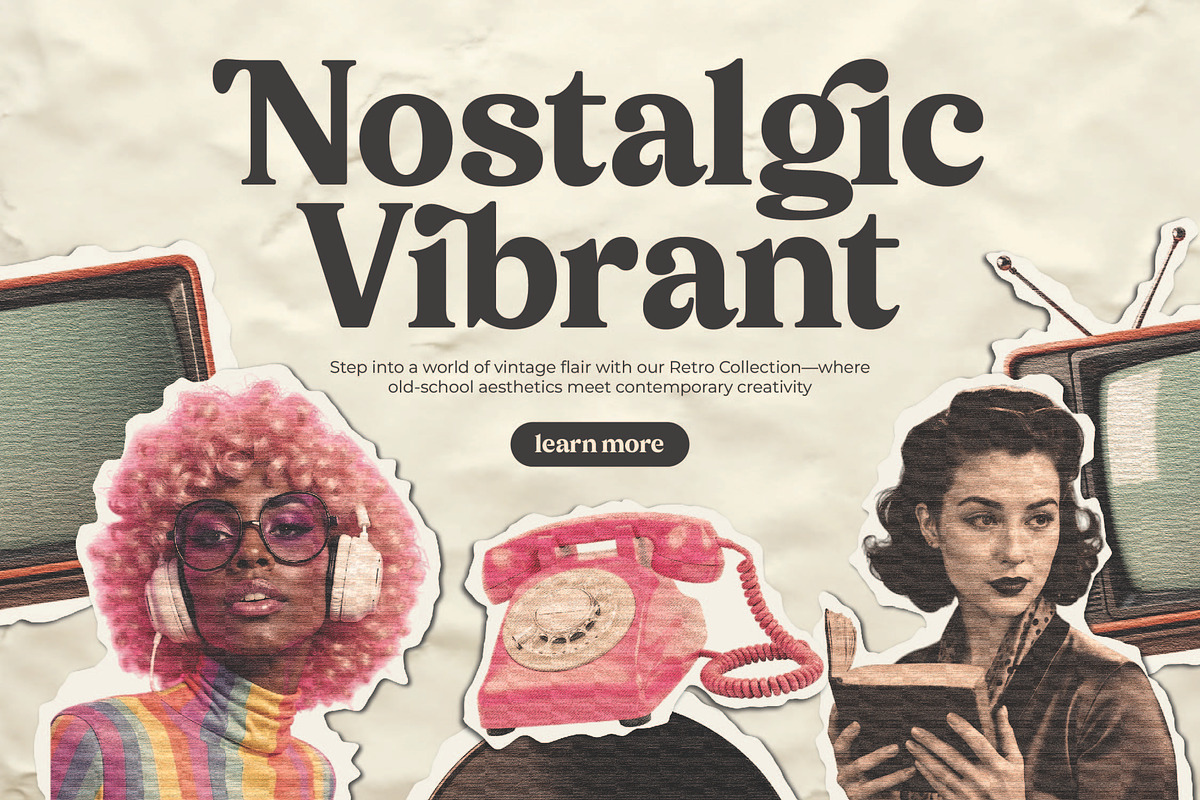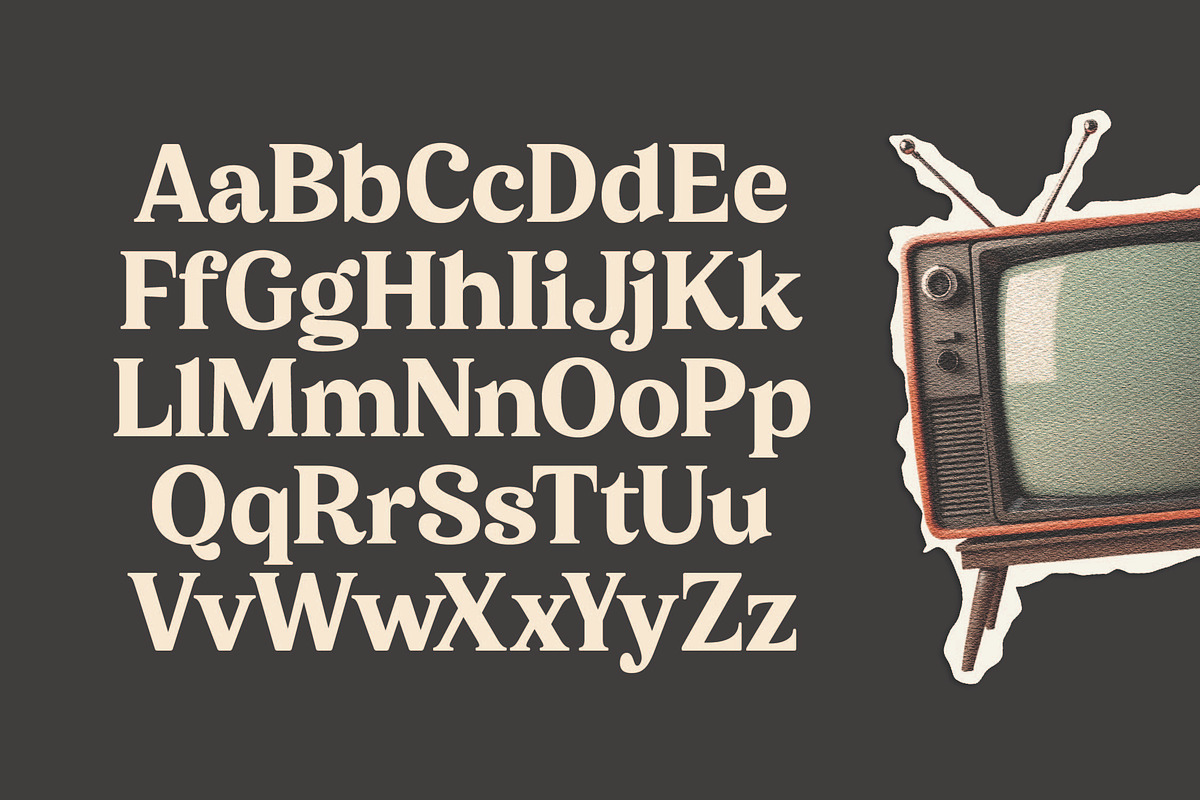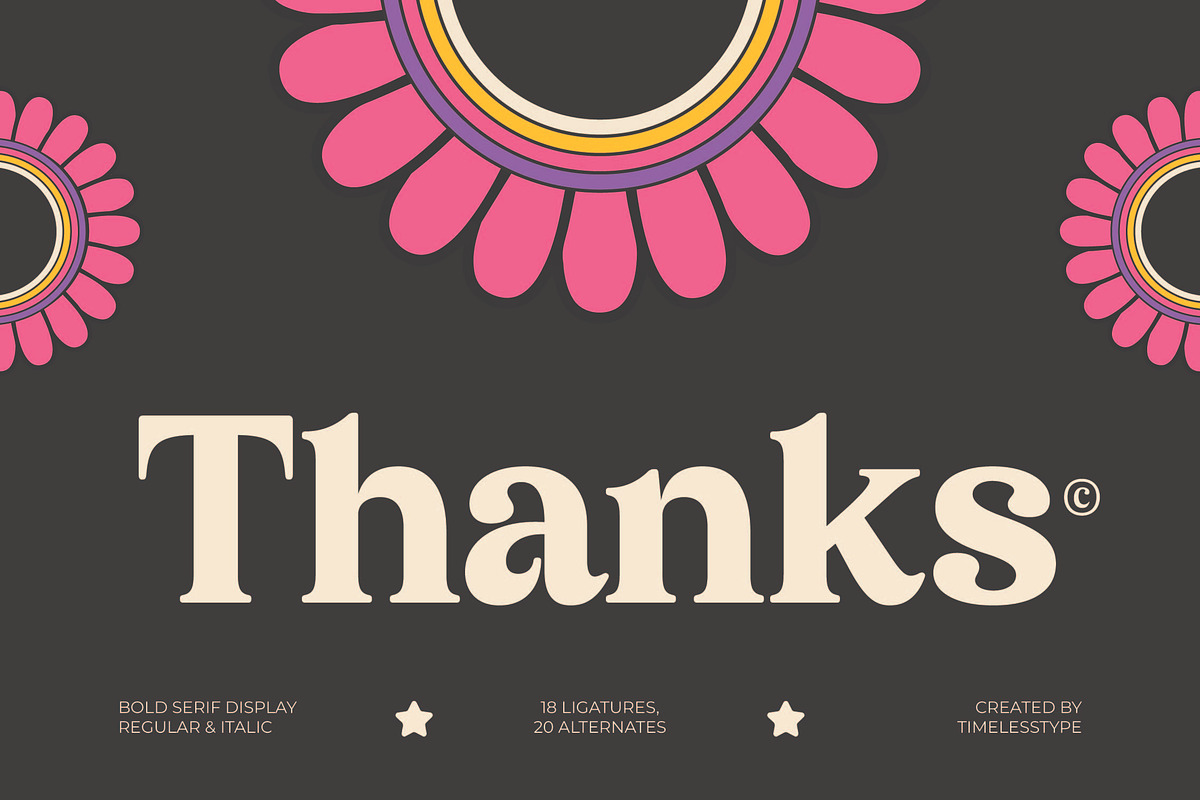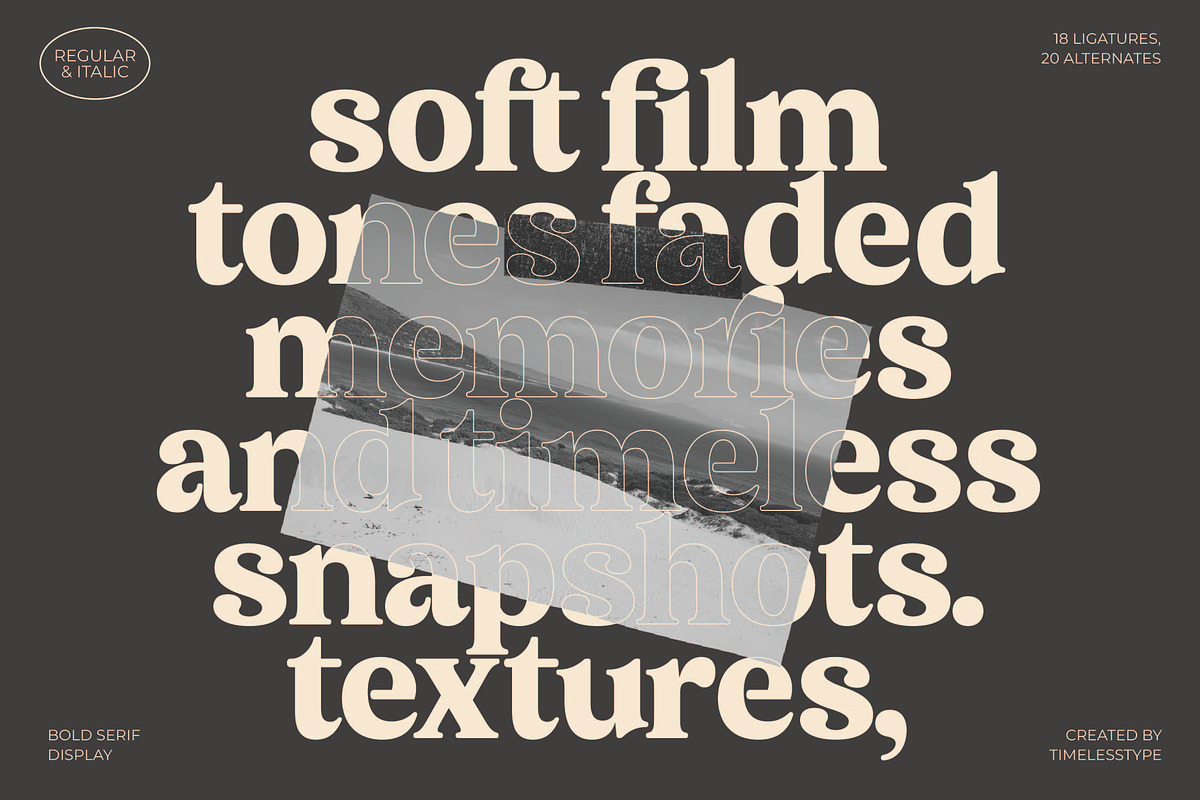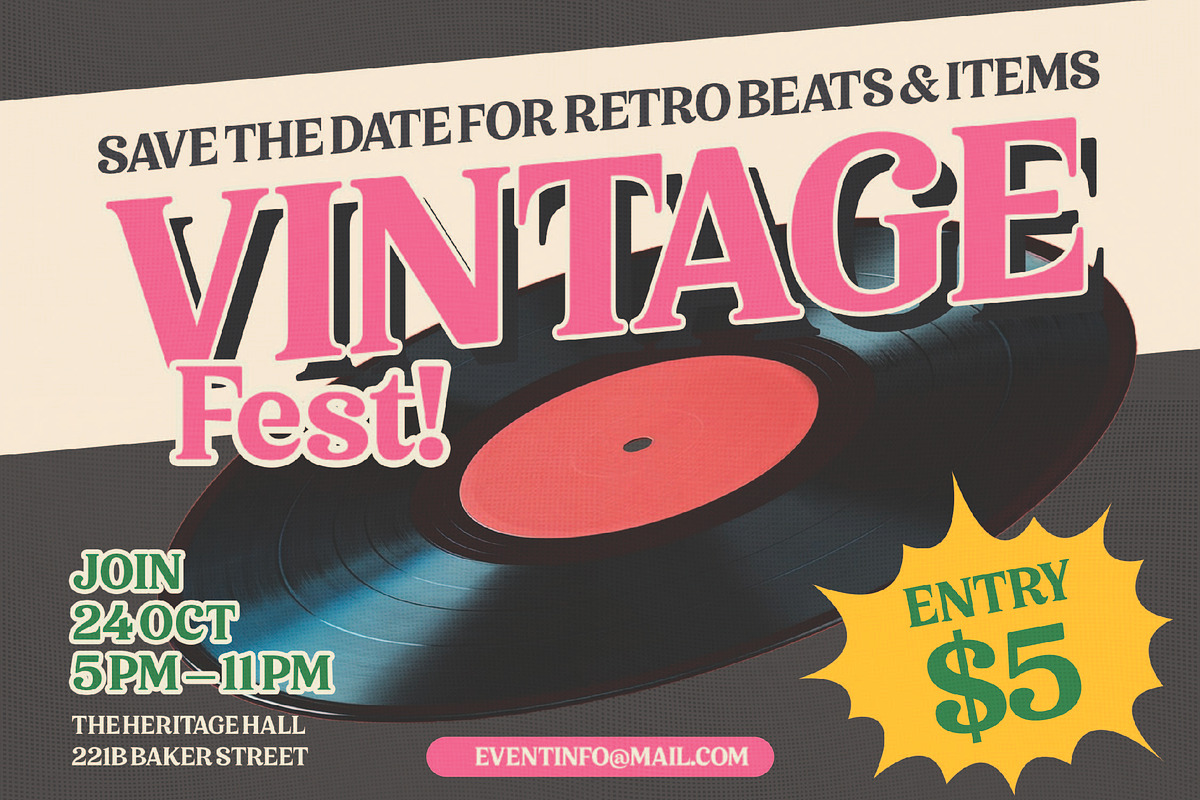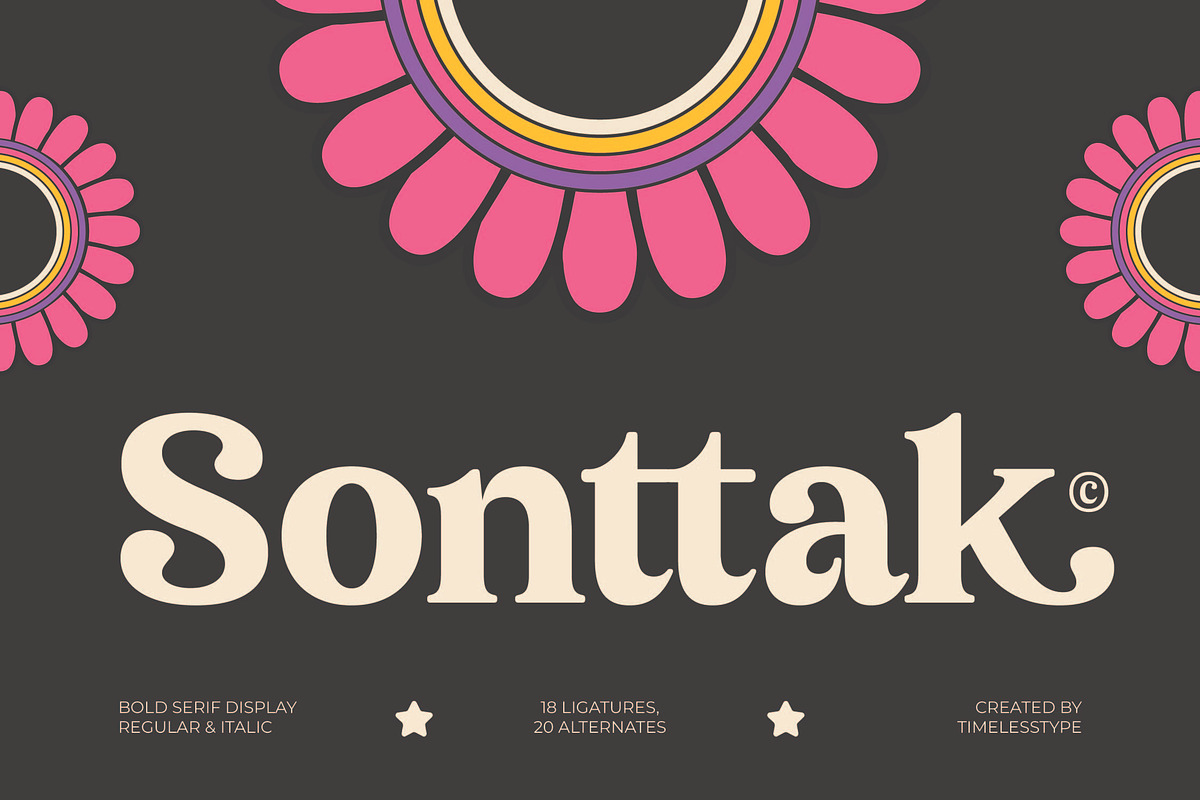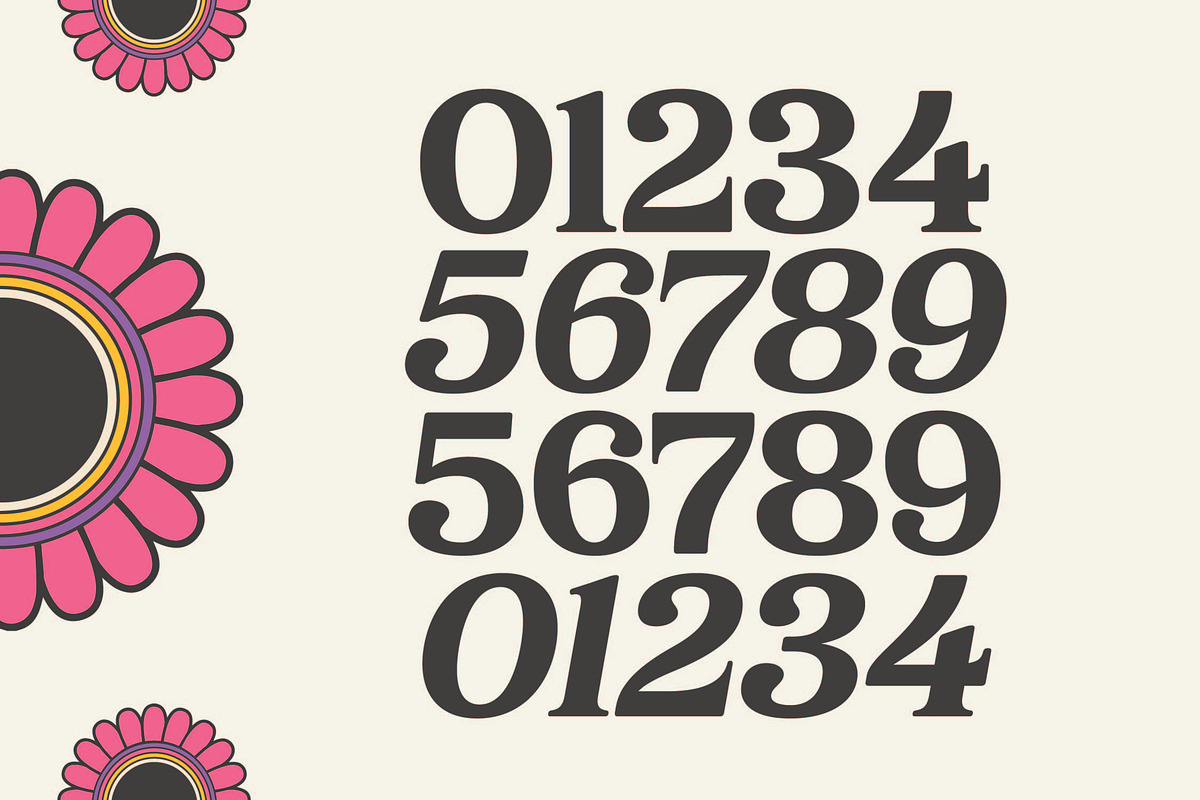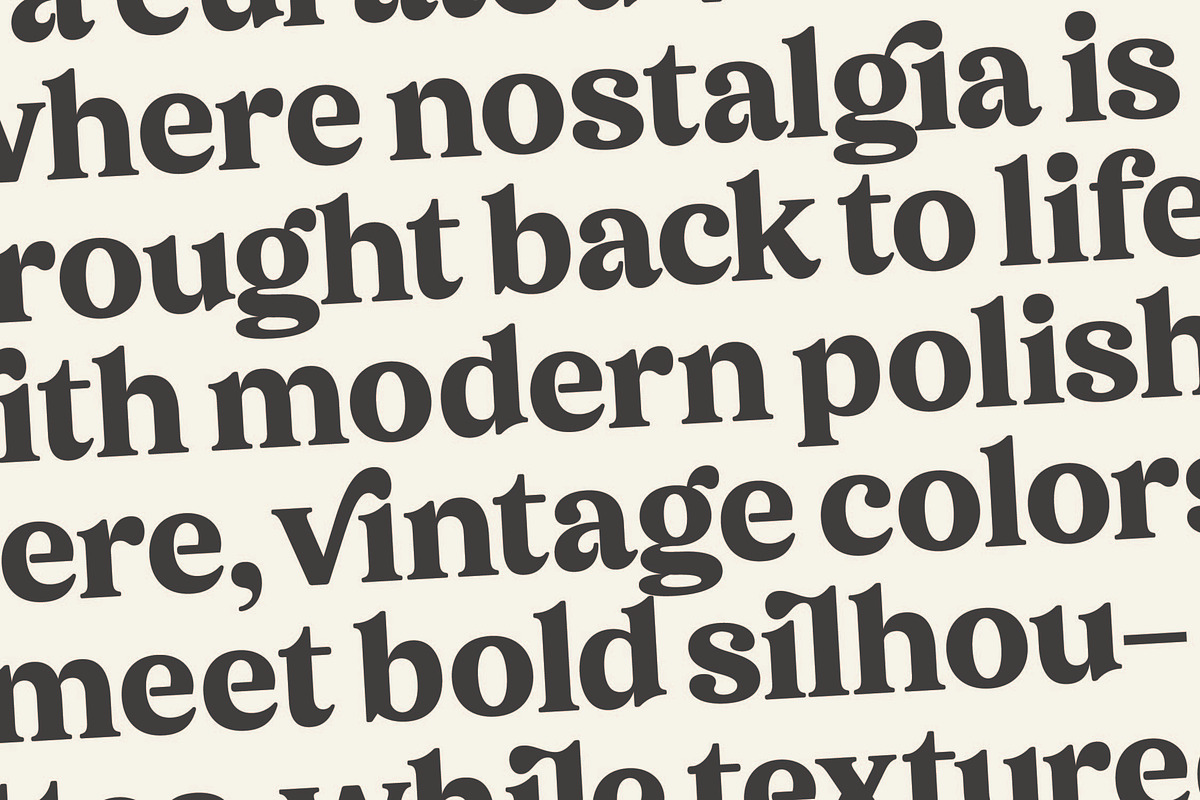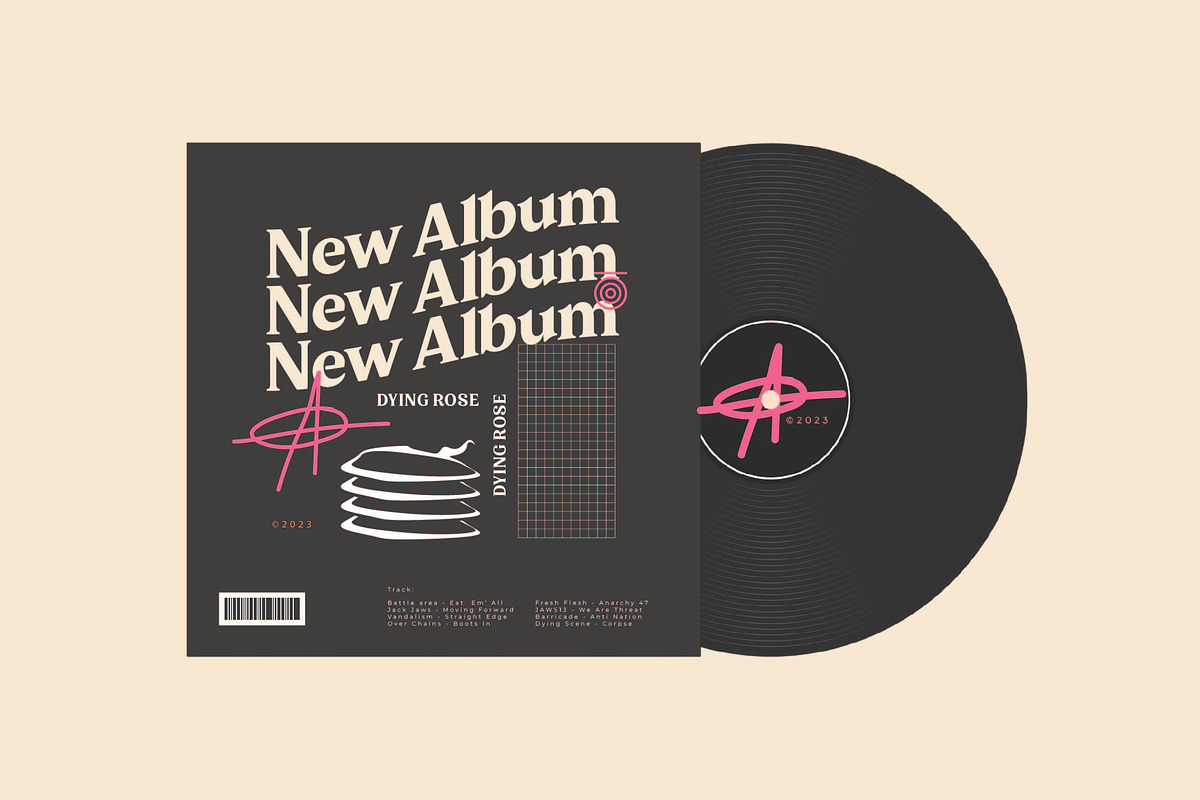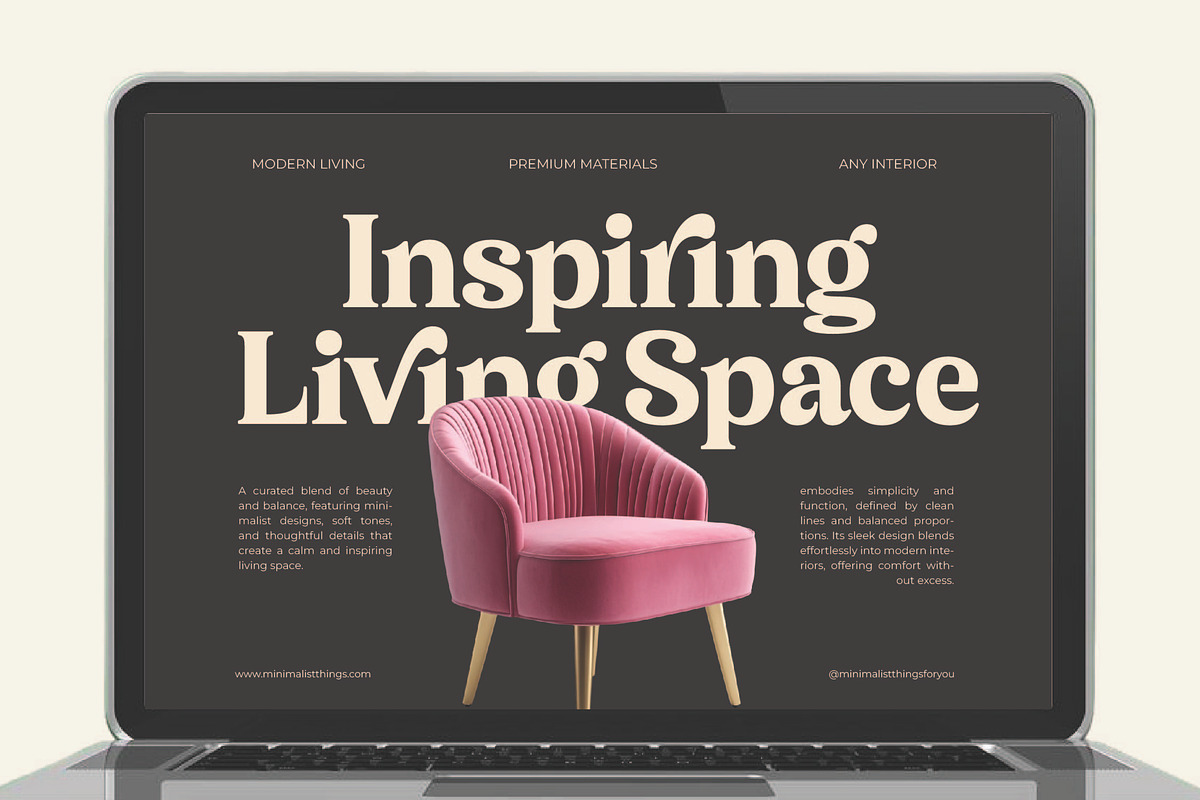
Sonttak Bold Retro Display Serif
Sonttak is a masterclass in blending nostalgic warmth with contemporary elegance, offering a bold visual statement that commands immediate attention. This typeface is designed to be the centerpiece of your creative vision, bridging the gap between classic craftsmanship and modern flair.
Drawing inspiration from the vibrant energy of the 1970s and the structured beauty of traditional serifs, this font captures a unique modern vintage atmosphere. The organic flow of the letterforms paired with sharp, intentional details creates a rhythmic balance that feels both grounded and expressive.
With its thick, confident strokes and delicate tapering, this modern serif display is built for luxury typography and branding impact. Every character exudes a sense of high-contrast serif sophistication, making it an essential editorial font for designers who prioritize style and substance.
As the modern serif trend continues to dominate the creative landscape, this typeface stands out by offering character-driven typography that breaks away from generic designs. It perfectly aligns with the demand for editorial display fonts that feel curated, bespoke, and timelessly stylish.
This versatile typeface is the ultimate choice for logo design and high-end branding projects that require a touch of personality. Whether you are working on editorial layouts, luxury packaging, romantic wedding stationery, or avant-garde fashion campaigns, it delivers a polished and professional look.
Beyond its striking aesthetics, the font includes a rich set of ligatures and alternates to help you customize every word to perfection. It also features swashes and full multilingual support with international characters, ensuring your message reaches a global audience with flawless execution.
Numerals
Punctuations (OpenType Standard)
Accents (Multilingual Characters)
Ligatures and Alternative Style Stylistic Set